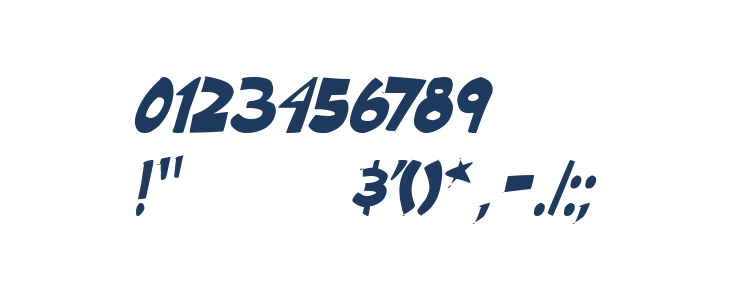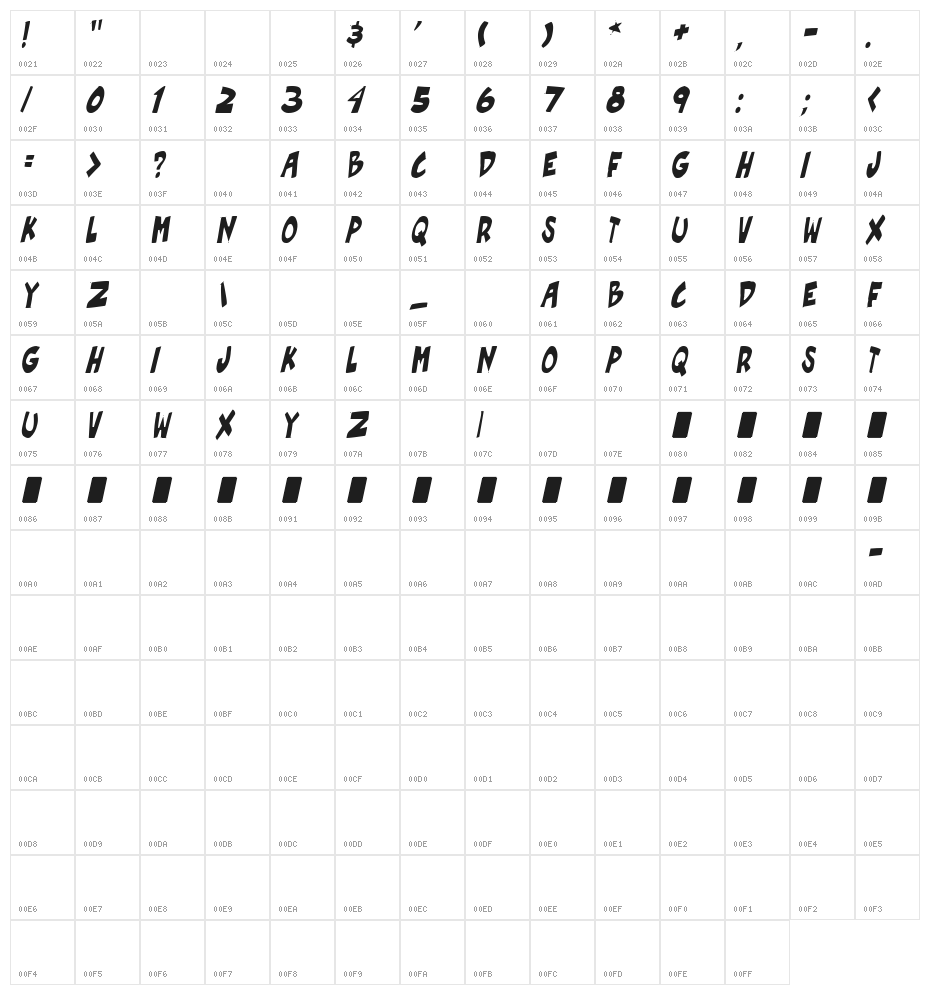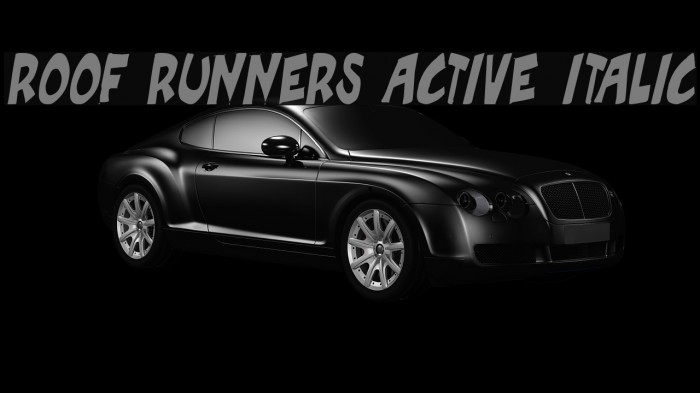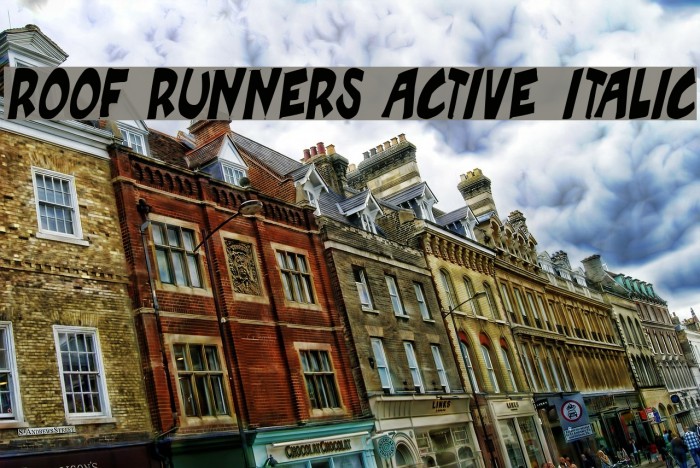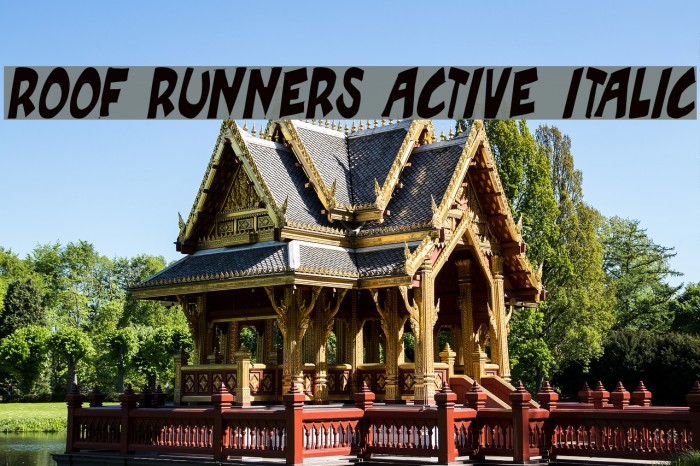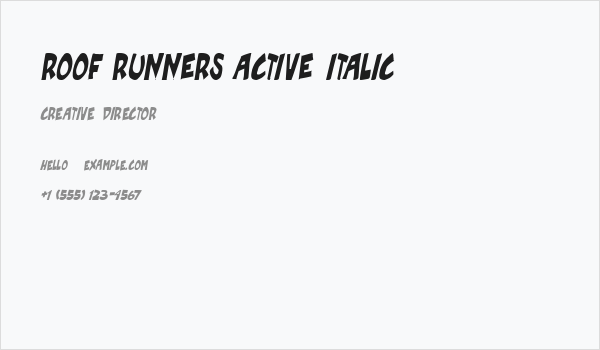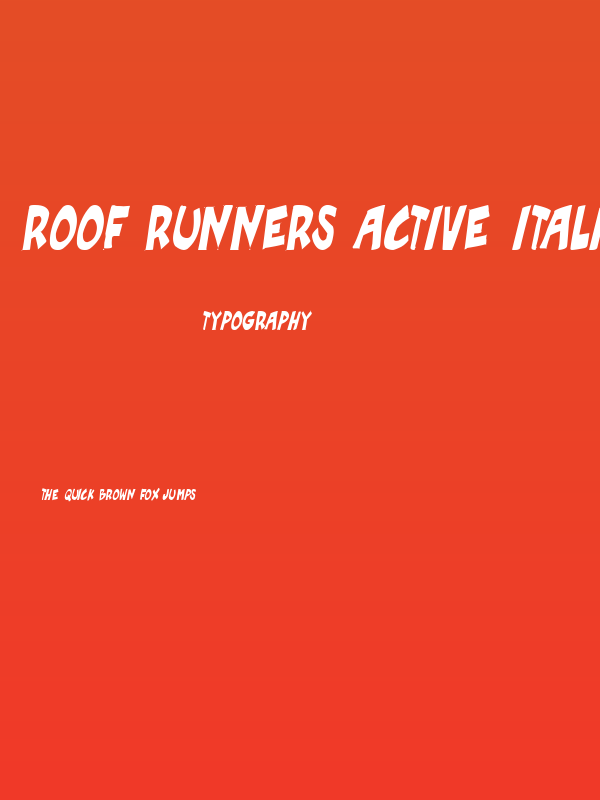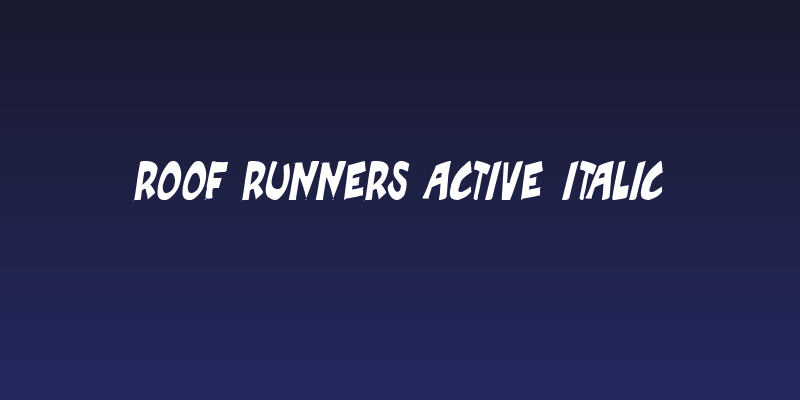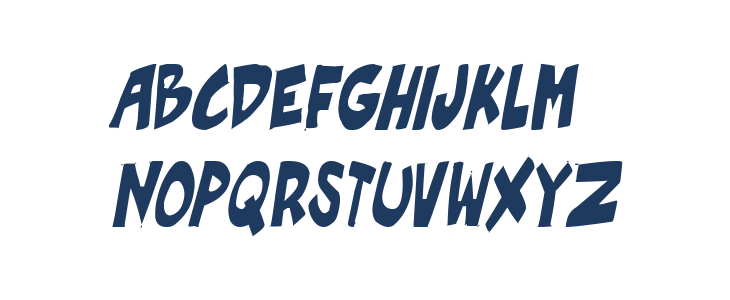
Roof runners active Italic Font
Roof runners active Italic Description
This font features a dynamic and energetic style with a strong italic slant, giving it a sense of motion and urgency. The characters are bold and have a hand-drawn appearance, with irregular edges that add to its lively and informal feel. The uppercase and lowercase letters maintain a consistent style, while the numerals and special characters complement the overall design. The font's playful and bold nature makes it suitable for projects that require a sense of excitement and creativity.
| Overall Style | Modern, Energetic |
| Proposed Projects | Ideal for sports branding, event posters, comic book titles, and dynamic advertisements. |